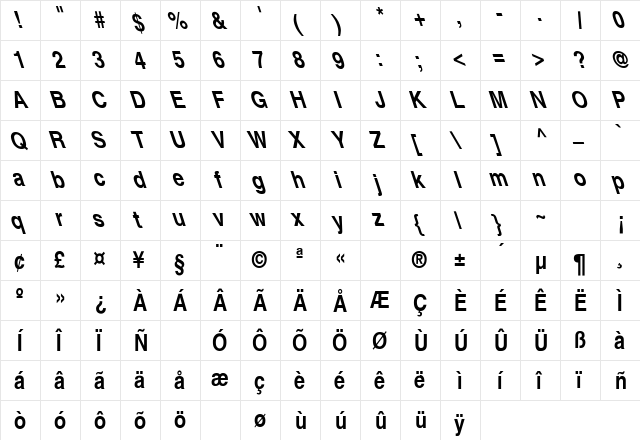
Helvetica-Narrow-Bold Lefty Regular Font Preview
Design Context for Helvetica-Narrow-Bold Lefty Typeface
Helvetica-Narrow-Bold Lefty offers clean, dependable letterforms without strong stylistic allegiance, making it a practical choice for designers who need flexibility. Its bold stroke weight gives it real presence on the page. The condensed width makes it efficient for tight spaces without sacrificing legibility.